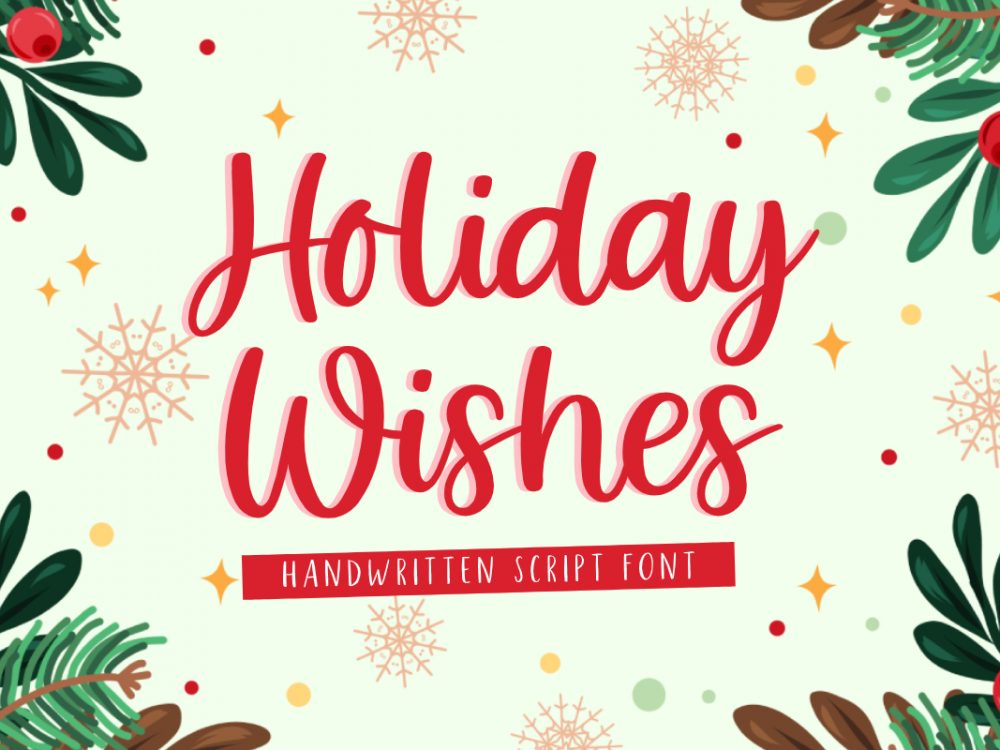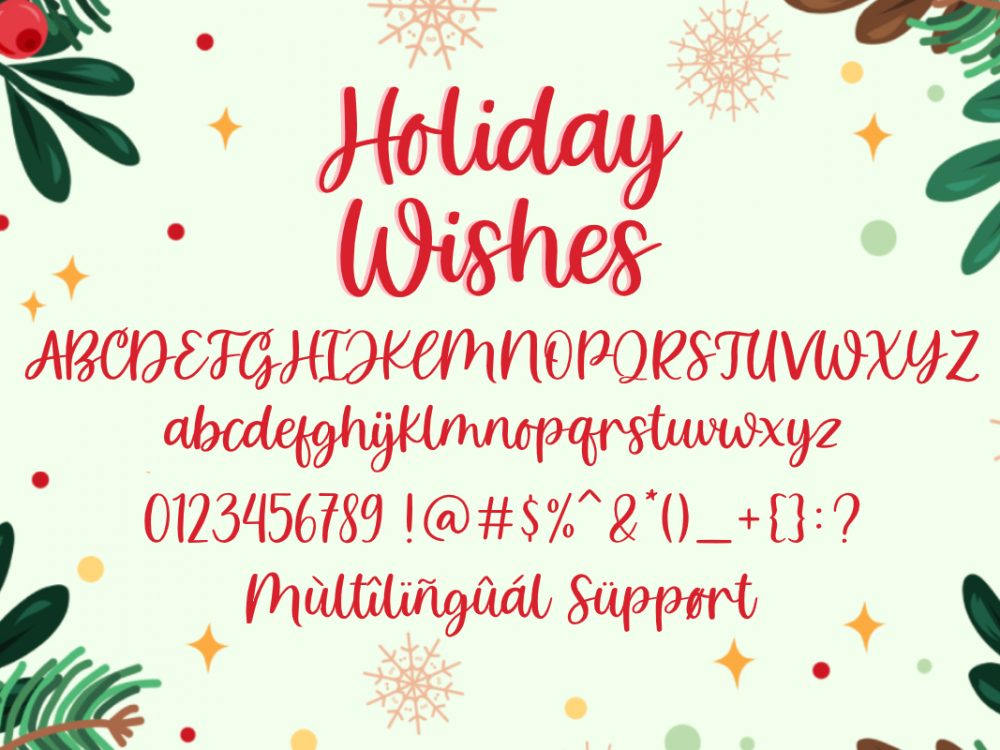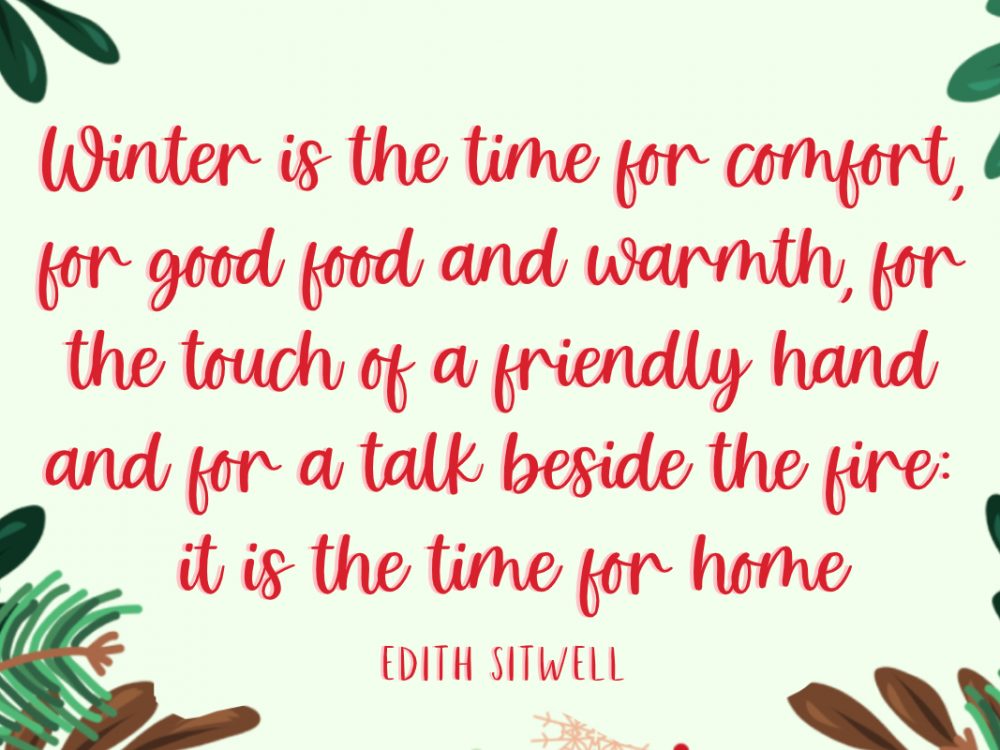
Holiday Wishes Free Font
Holiday Wishes Free Font is an interesting calligraphic font that features an elegant outline and modern style. This font is very suitable for a variety of design projects that require a scripted font. You can use this font to create memorable romantic posters, wedding invitations, greeting or Christmas cards, branding, flyers, T-shirt and pillow prints, and more. If you like it don’t forget to check out the full version.